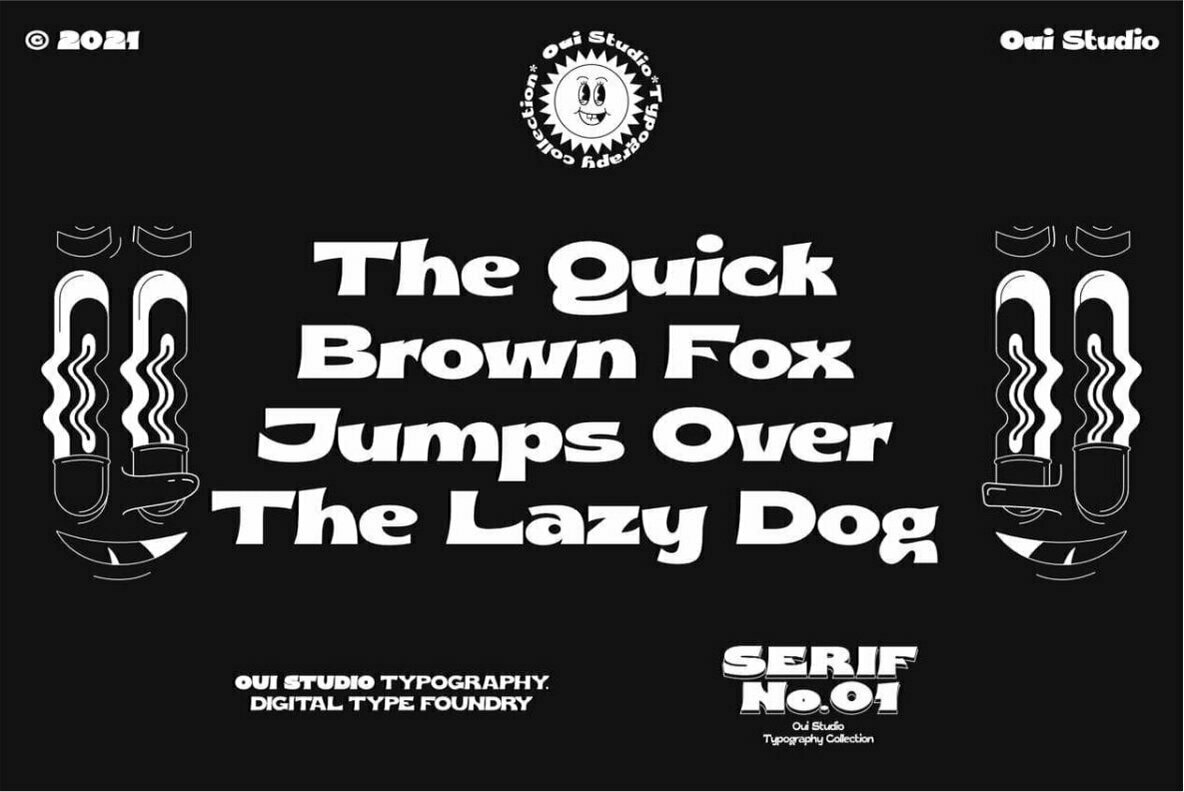
Wolfie: Dynamic Vintage Font Family
Channeling a vintage aesthetic, the Wolfie font family brings both dynamism and nostalgia to your designs. Wolfie's versatile character makes it suitable for branding, logos, packaging, headers, and titles. Its seamless ability to pair with an 80's illustration can elevate your project into a truly captivating design.
• Three Width Options: Condensed, Ultra Condensed, and Normal
• Five Weight Variations: Light, Semi Light, Regular, SemiBold, and Bold
• Total of 30 Different Fonts
• Supports Over 75 Languages